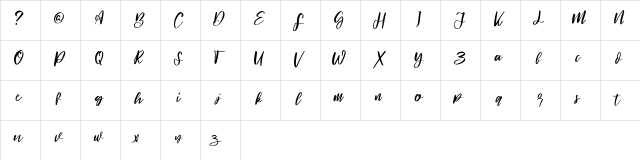
Signature hawk Regular
Design Context for Signature hawk Typeface
Signature hawk is a composed and adaptable typeface that performs quietly and consistently across a wide range of design contexts.